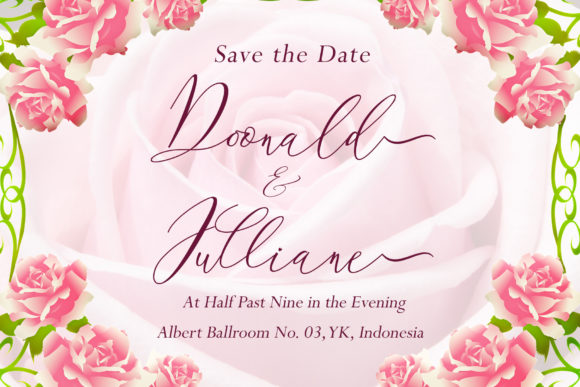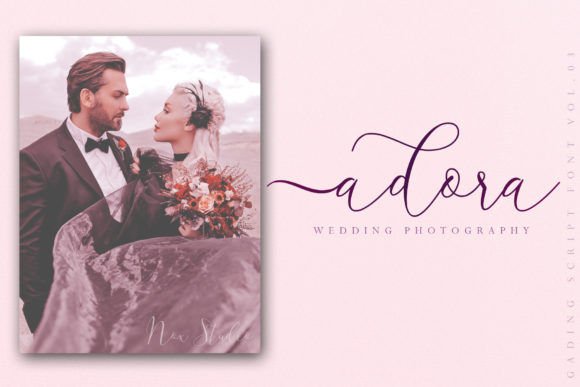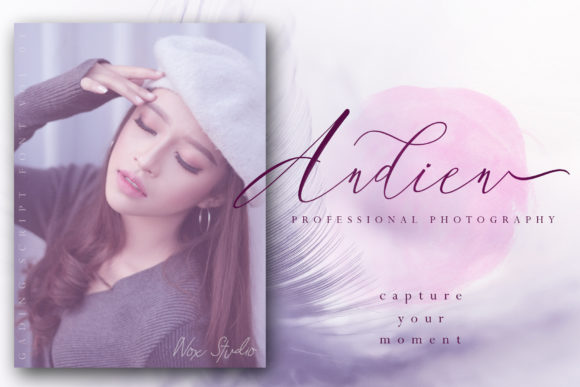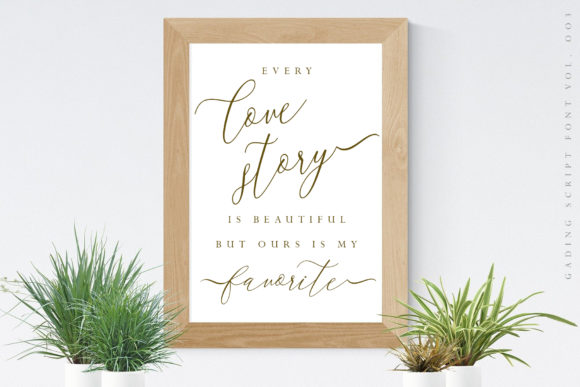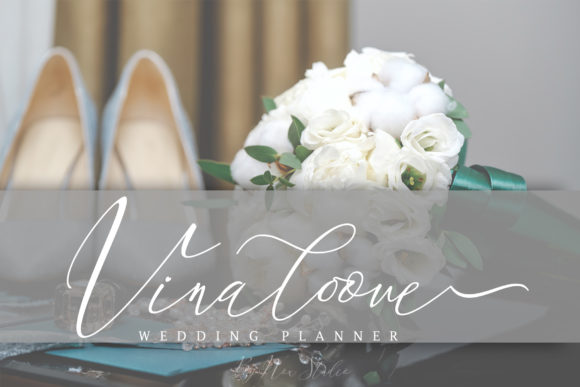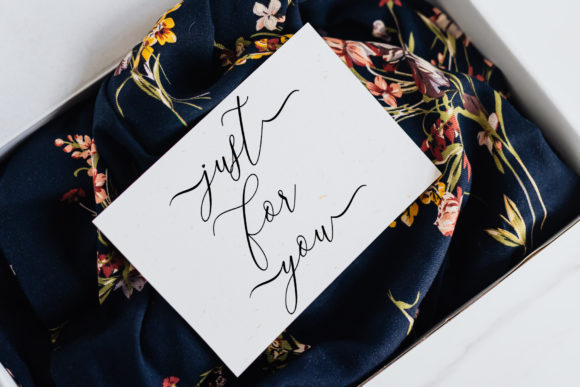
The Quest for the Perfect Font: Discovering Gading
I’ll never forget the time I was working on a project for a client who wanted a whimsical, hand-drawn look. I spent hours scouring the internet for the perfect font, but nothing seemed quite right. That was until I stumbled upon Gading, a beautiful script font that instantly captured the relaxed, playful vibe I was going for.
Gading is more than just a pretty font – it’s a versatile tool that can elevate a wide range of designs. In this article, I’ll share my experience with Gading, including what I love about it, some potential quirks to consider, and practical tips for getting the most out of this lovely font.
An Honest Review of Gading
- ✨ Beautifully balanced characters: Gading’s letters are meticulously crafted to create a sense of harmony and flow.
- ✅ PUA encoding: This means you can easily access all the glyphs and swashes, making it a breeze to customize your text.
- 🌈 Whimsical, relaxed theme: Gading’s playful style is perfect for projects that need a touch of personality.
While Gading is an excellent font, there are a few things to keep in mind:
- ⚠️ Legibility at small sizes: Like many script fonts, Gading can be tricky to read at very small sizes. Make sure to test it out at different sizes to ensure it’s legible for your project.
- 🤔 Overuse of swashes: While the swashes in Gading are beautiful, it’s easy to overdo it. Use them sparingly to add visual interest without overwhelming the text.
The Story Behind Gading
While the origins of Gading are shrouded in mystery, it’s clear that this font was created with love and care. The designer, who wishes to remain anonymous, was likely inspired by the beauty of handwritten script and the need for a font that could capture the relaxed, playful vibe of modern design.
Q: Is Gading suitable for body text?
A: While Gading is a beautiful font, it’s best suited for headlines and titles. For body text, you may want to choose a font with better legibility.